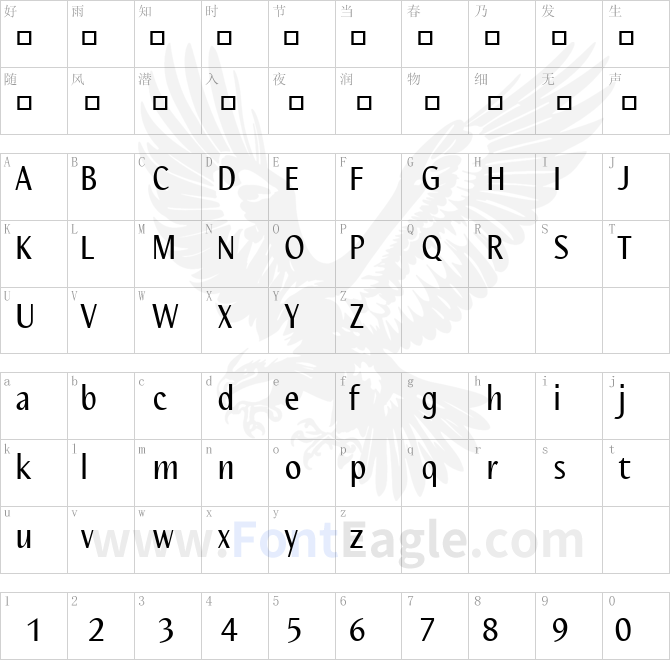
- Font name:Nautilus LT Roman
- Font Subfamily ID:LinotypeLibraryGmbH: Nautilus LT Roman: 2002
- Font Full Name:Nautilus LT Roman
- Postscript:NautilusLT-Roman